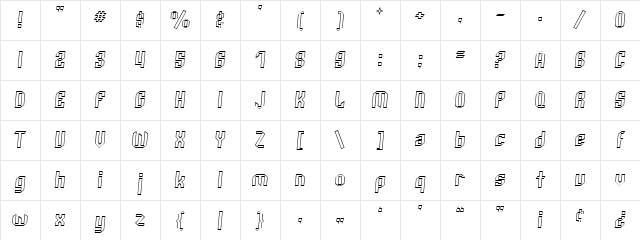
SF Archery Black Outline Italic Free Font
SF Archery Black Outline Italic
Design Context for SF Archery Black Outline
SF Archery Black Outline is built around its visual character rather than neutral utility - its distinctive forms are designed to make an impression at display sizes. The slanted form adds forward momentum and visual energy.
Font Pairing: Pair with a clean neutral sans-serif for body copy to let SF Archery Black Outline's character lead without overwhelming the composition.
Pro Tip: Use SF Archery Black Outline exclusively at display sizes - it was designed to be seen, not read at length. Let a neutral companion handle body copy.